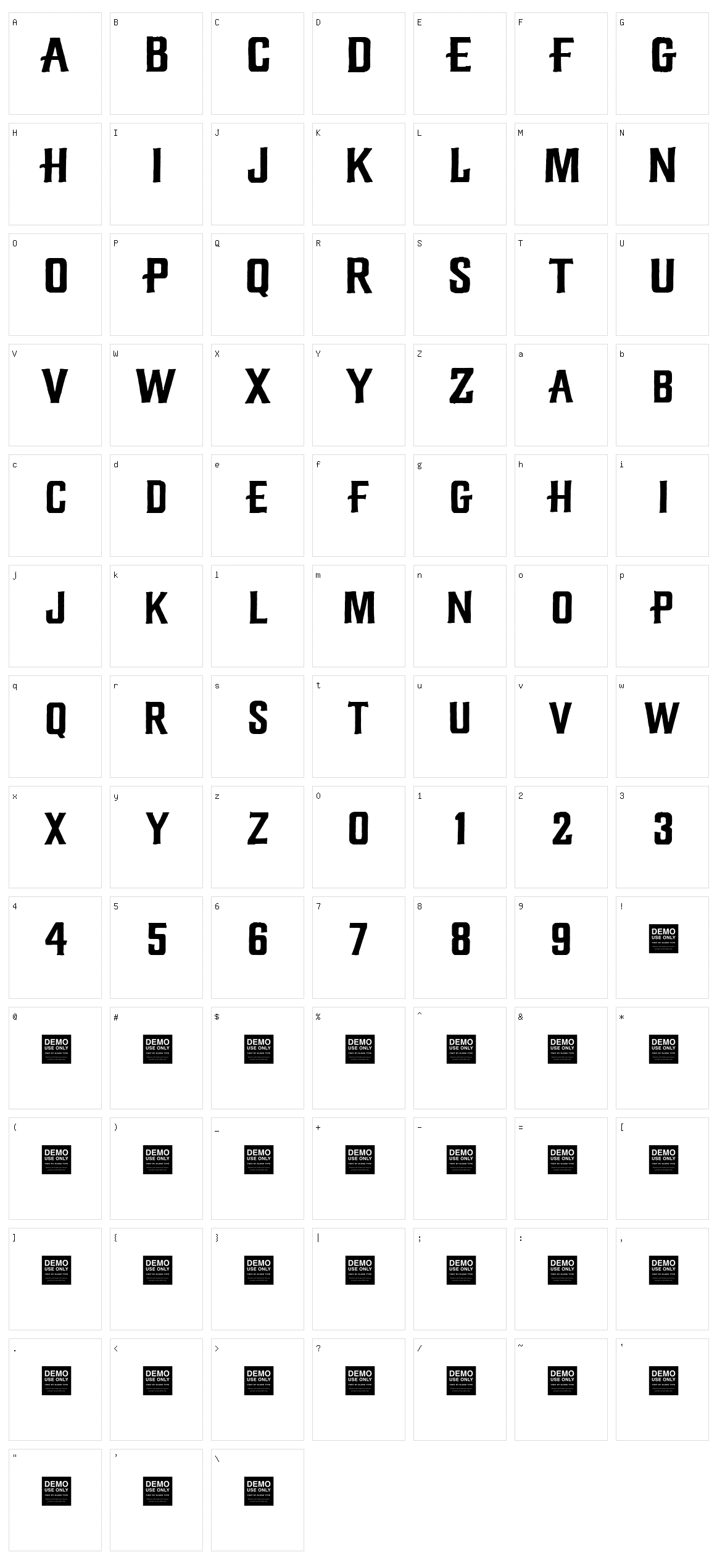
The free font Diamond Creek is carefully designed by BLKBK Fonts, showcasing a thoughtful balance of creativity and usability and falls under the Western font style. When you download the ZIP file, it contains only 55.97 KB of font files, making it lightweight and quick to download. Please review the license details below to understand permitted usage and distribution rights. If license information is not available, we recommend using this font for personal projects only or contacting the author directly for commercial usage permissions.